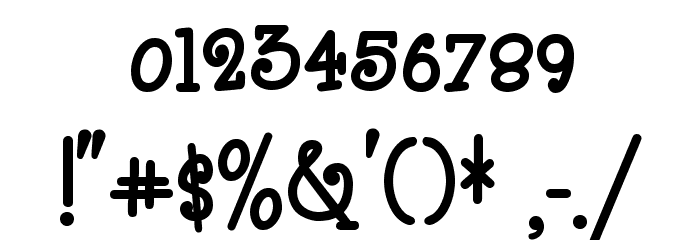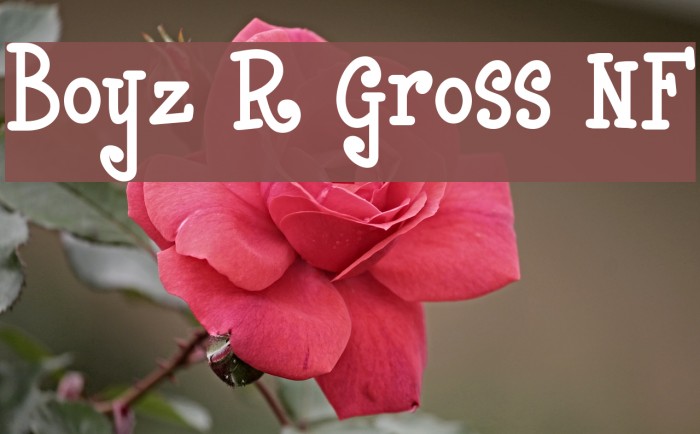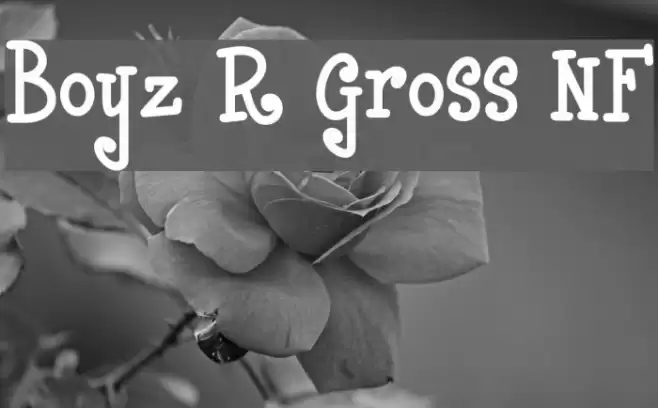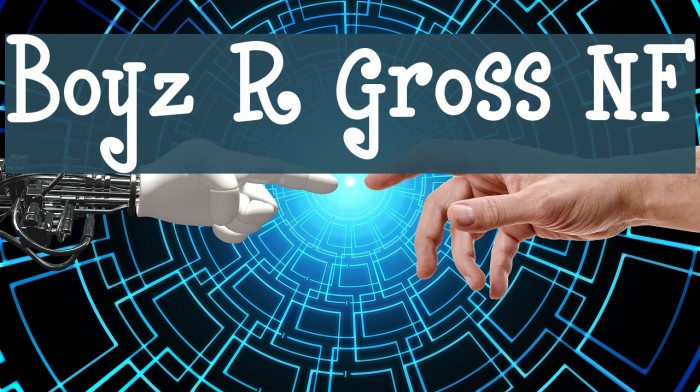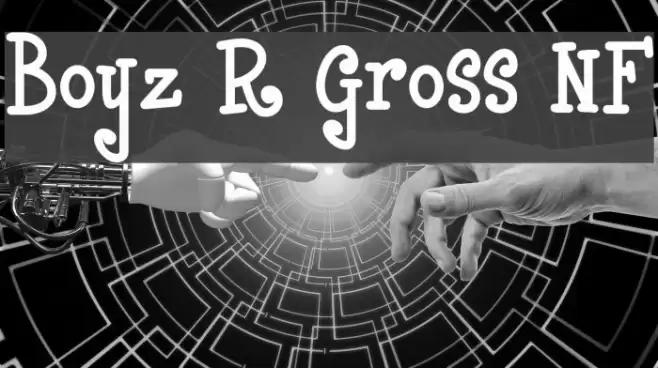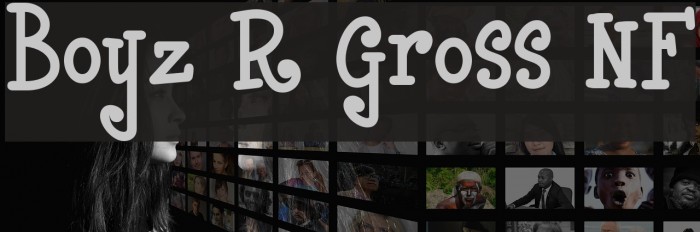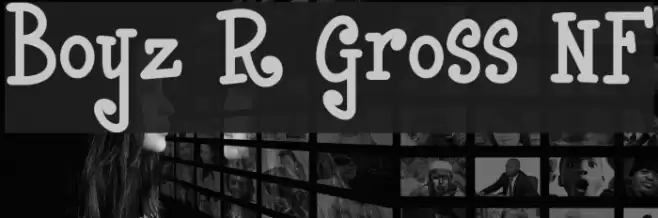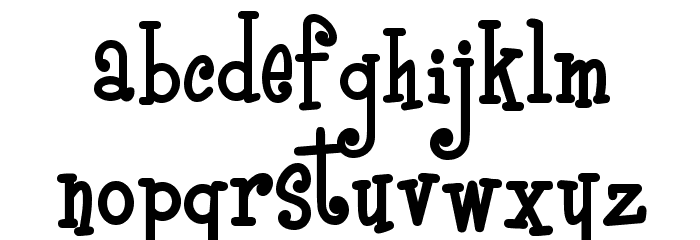
Boyz R Gross NF Font
Boyz R Gross NF Description
This font features a playful and whimsical design, characterized by its bold and rounded letterforms. The letters have a slightly uneven baseline, adding to the quirky and fun aesthetic. The uppercase letters are tall and prominent, while the lowercase letters maintain a consistent style with slight variations in height and width. The numerals and special characters follow the same playful theme, making the font suitable for creative and informal projects. The overall appearance is eye-catching and distinctive, with a strong presence that stands out in any design.
| Overall Style | Playful |
| Proposed Projects | Ideal for children's books, playful branding, party invitations, and creative posters. |